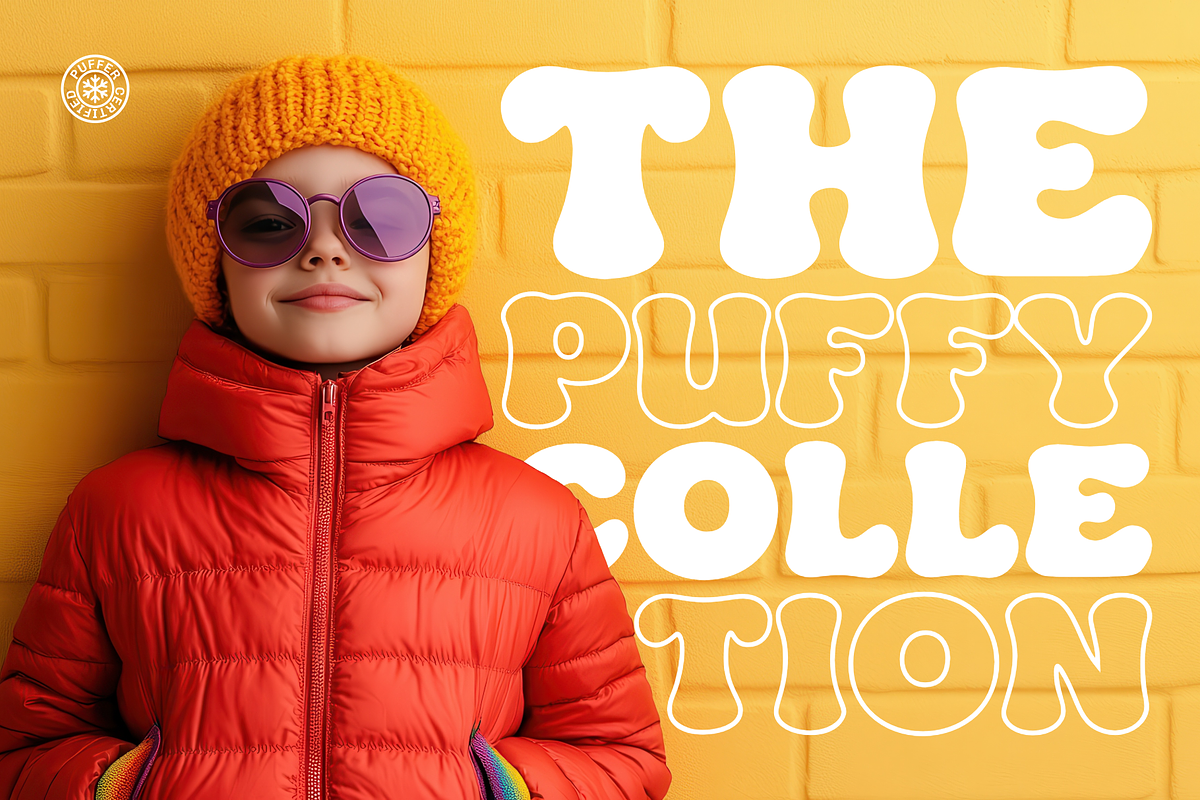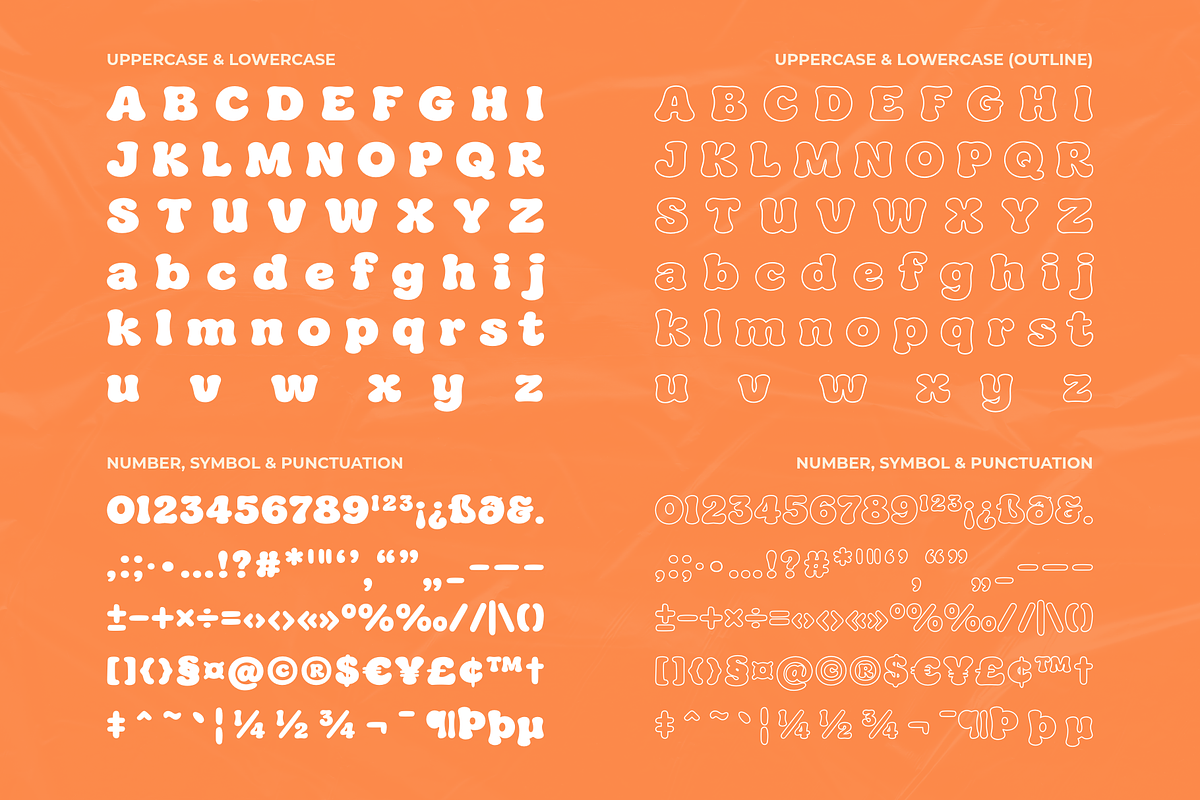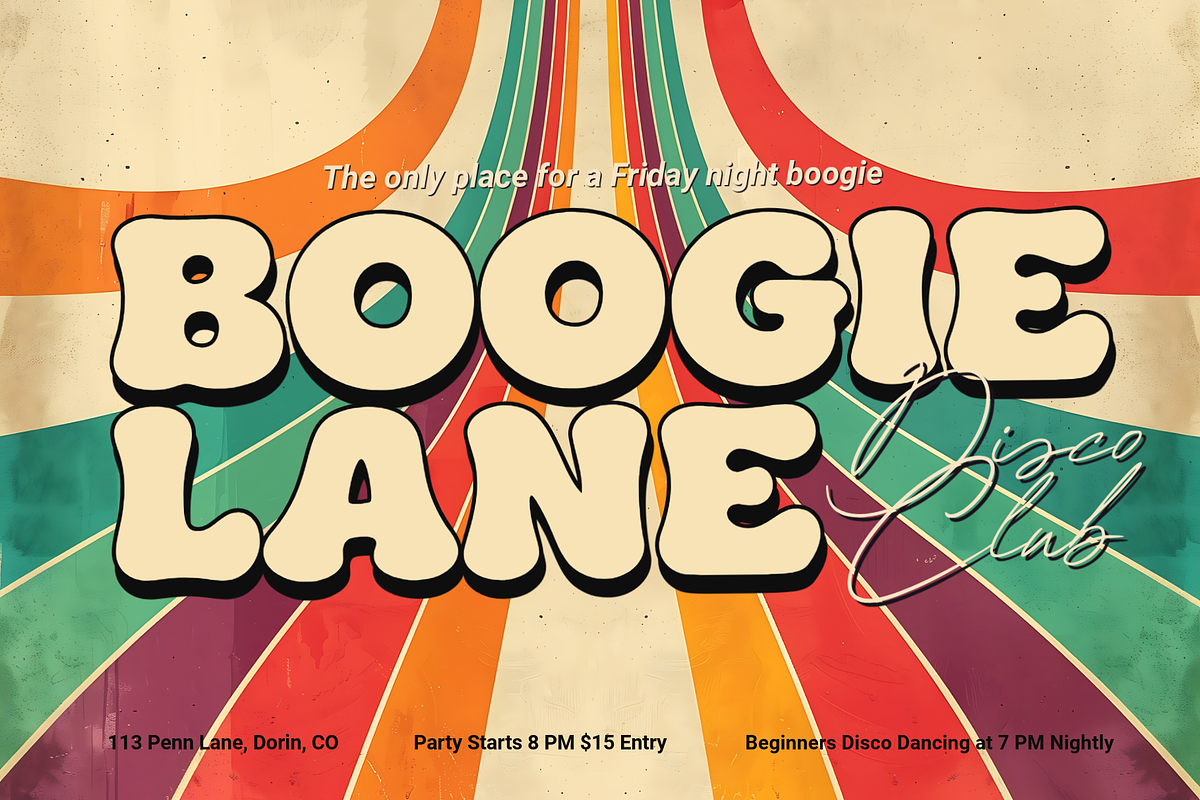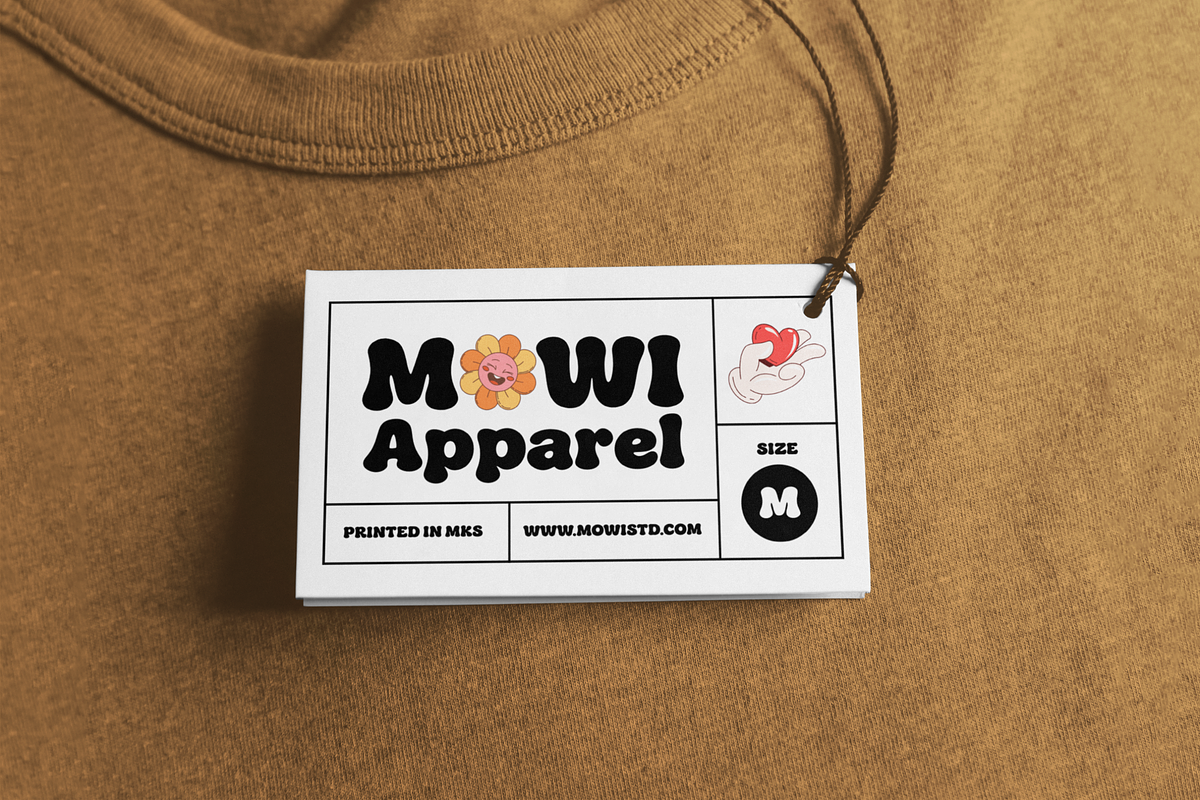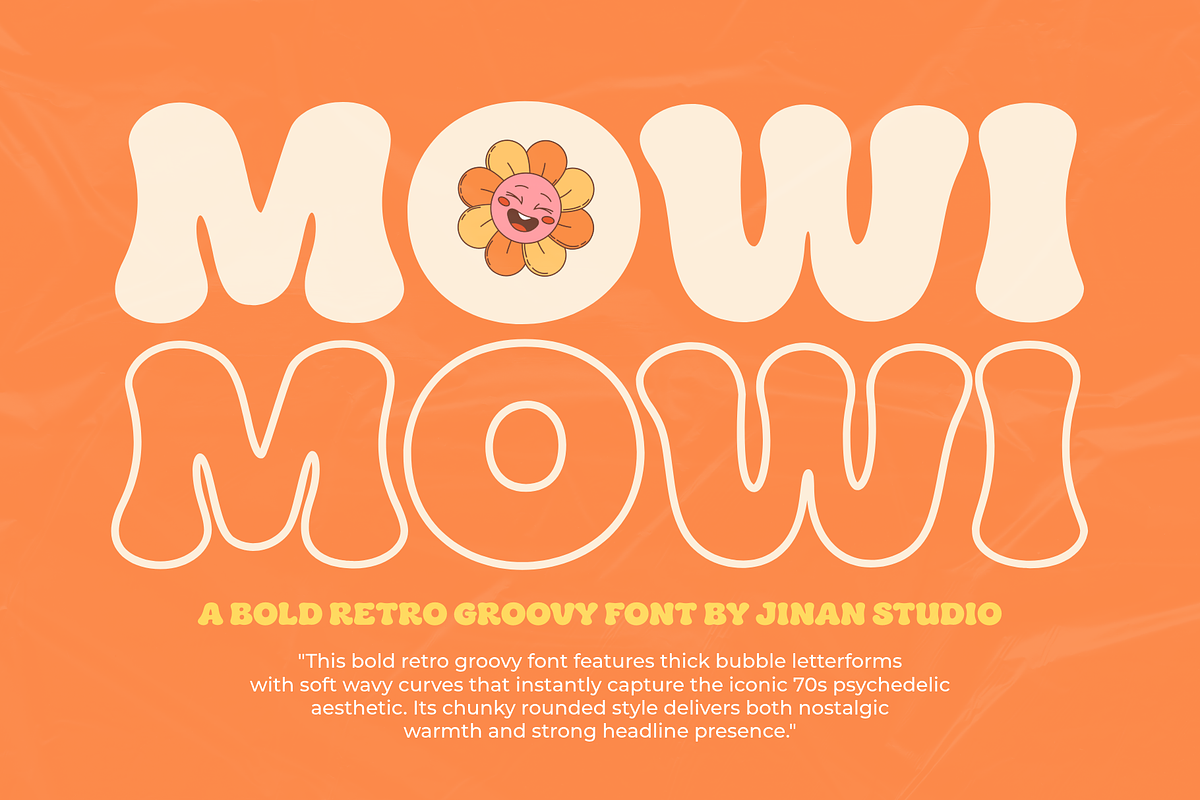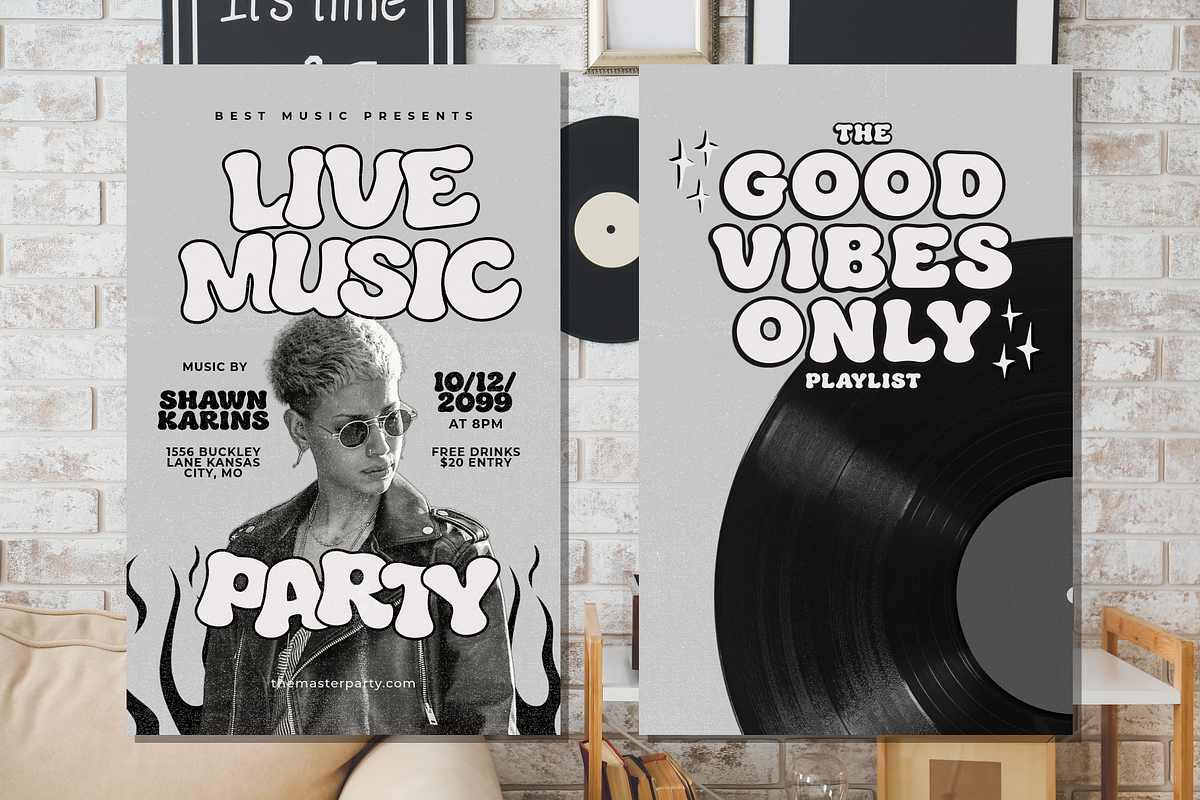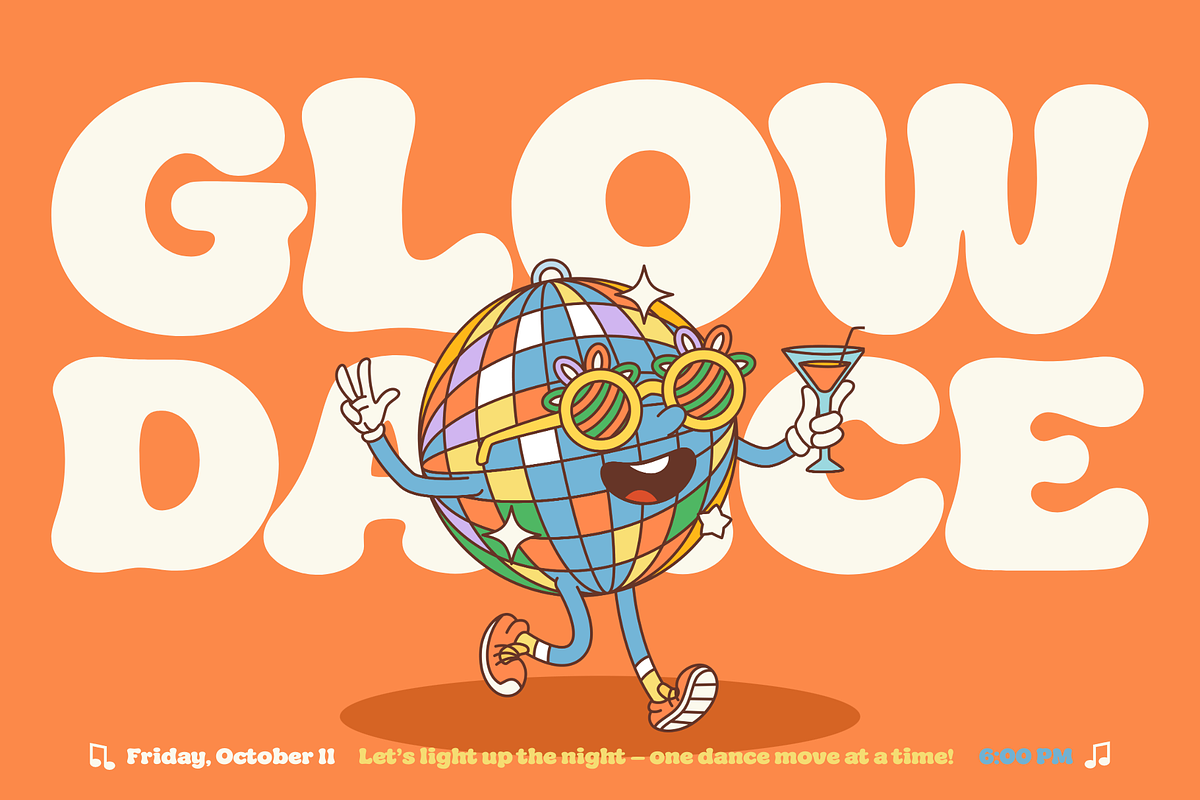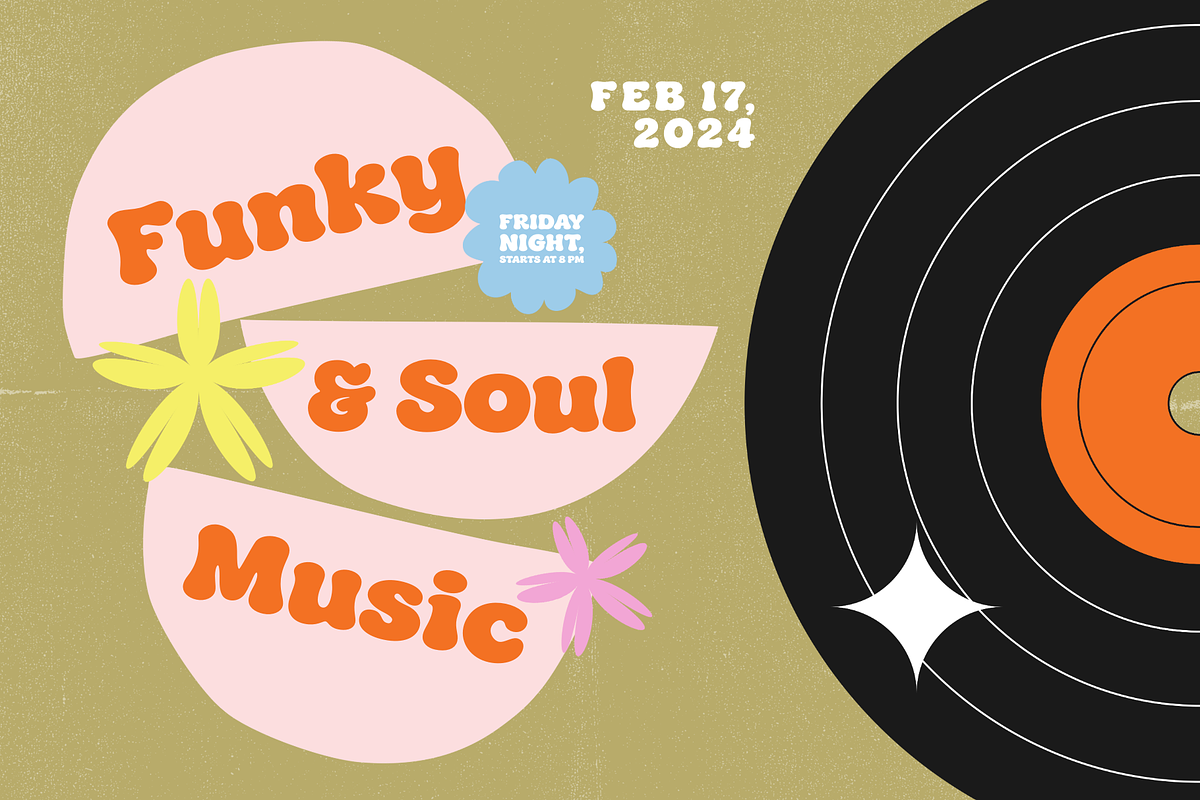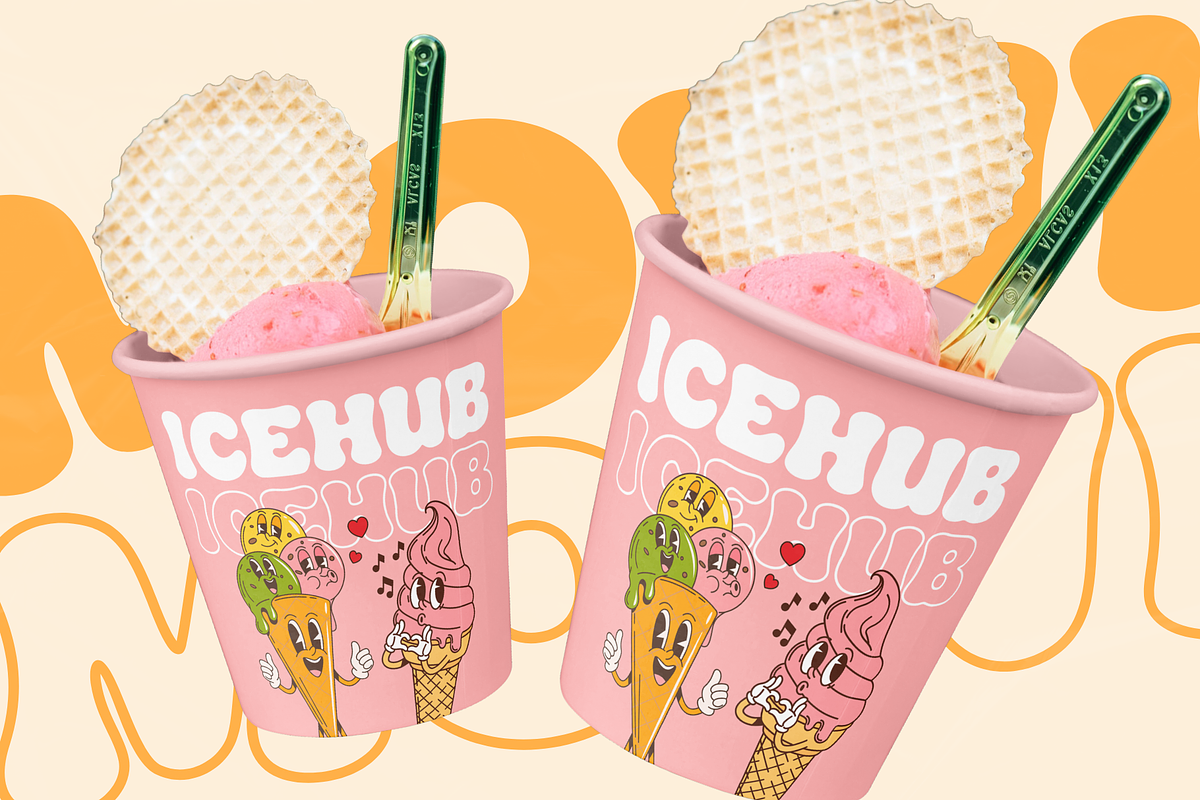
Mowi - A Bold Retro Groovy
Mowi is a bold retro groovy font inspired by the playful spirit of the 70s. Featuring thick bubble letterforms and soft wavy curves, this typeface brings instant warmth, fun, and nostalgic energy to any design.
Its chunky rounded shapes create a strong yet friendly headline presence, making it perfect for posters, branding, packaging, social media graphics, kids projects, and retro-themed designs. Mowi captures that psychedelic vintage vibe while staying clean and easy to read.
- A set of uppercase and lowercase glyphs
- Number, symbol, and punctuation
- Outline Version